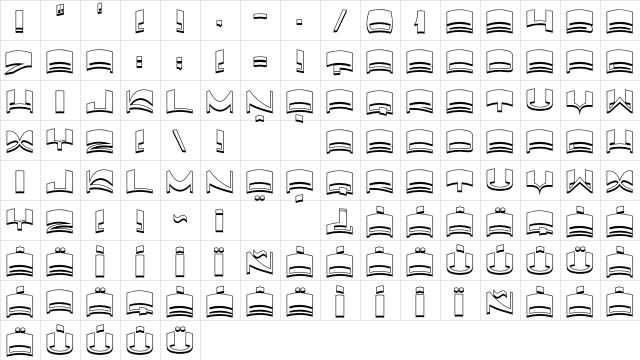
JMH Elixir Shadow Regular
Design Context for JMH Elixir Shadow Typeface
JMH Elixir Shadow brings ornamental detail and strong personality to headlines and identities, where visual impact matters more than quiet functionality.
Font Pairing: Pair with a clean neutral sans-serif for body copy to let JMH Elixir Shadow's character lead without overwhelming the composition.
Pro Tip: Use JMH Elixir Shadow exclusively at display sizes — it was designed to be seen, not read at length. Let a neutral companion handle body copy.